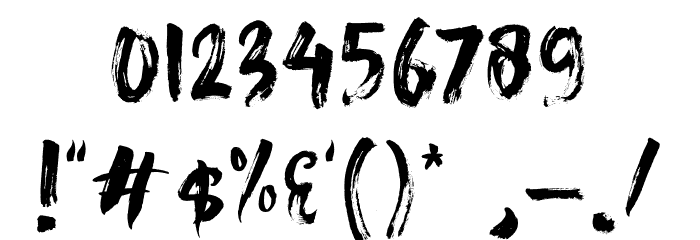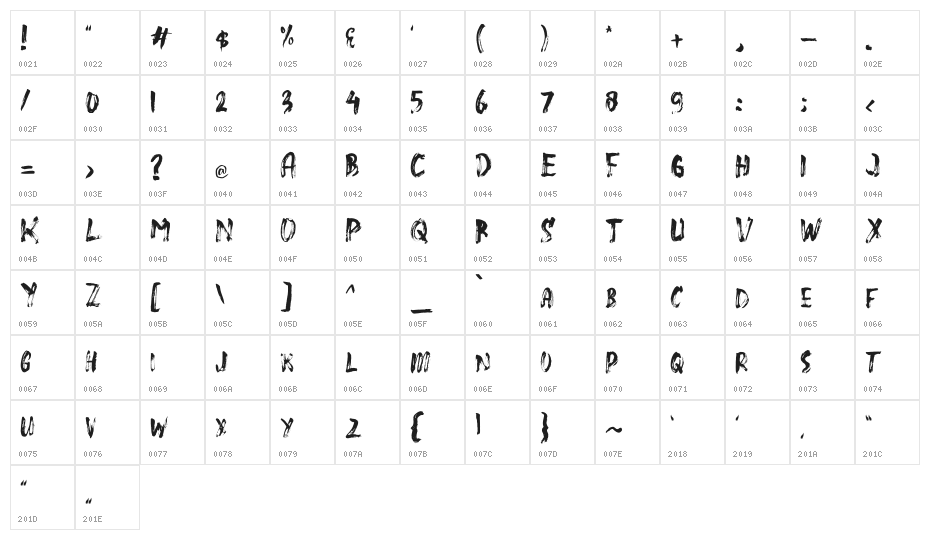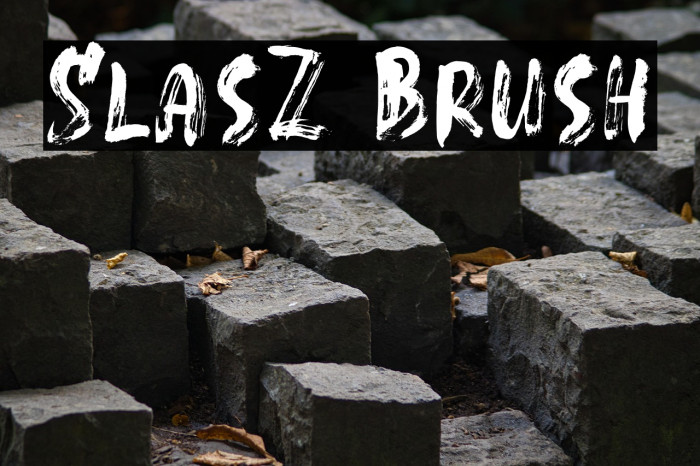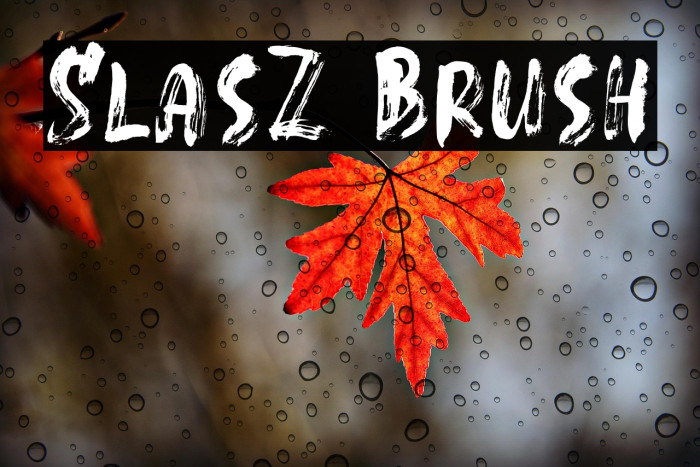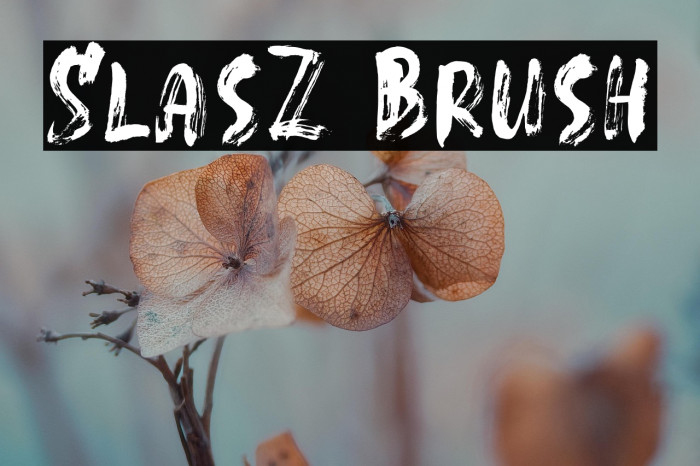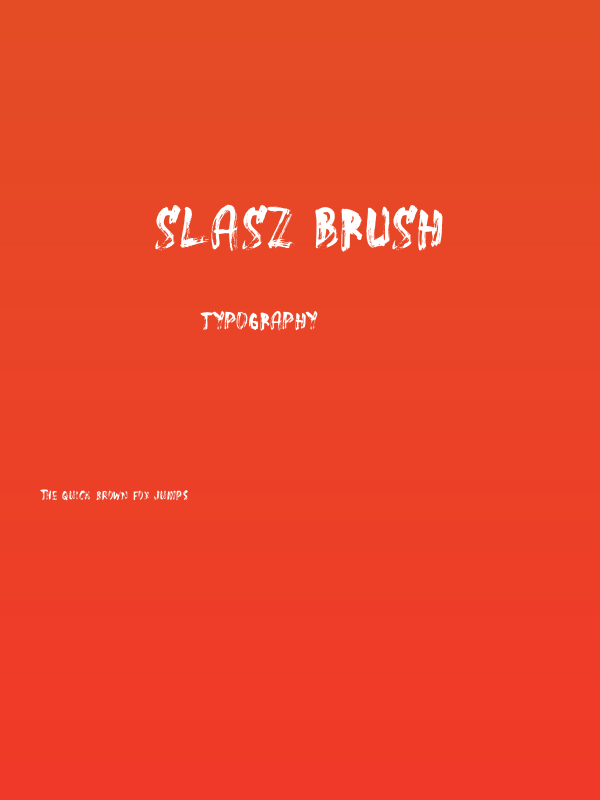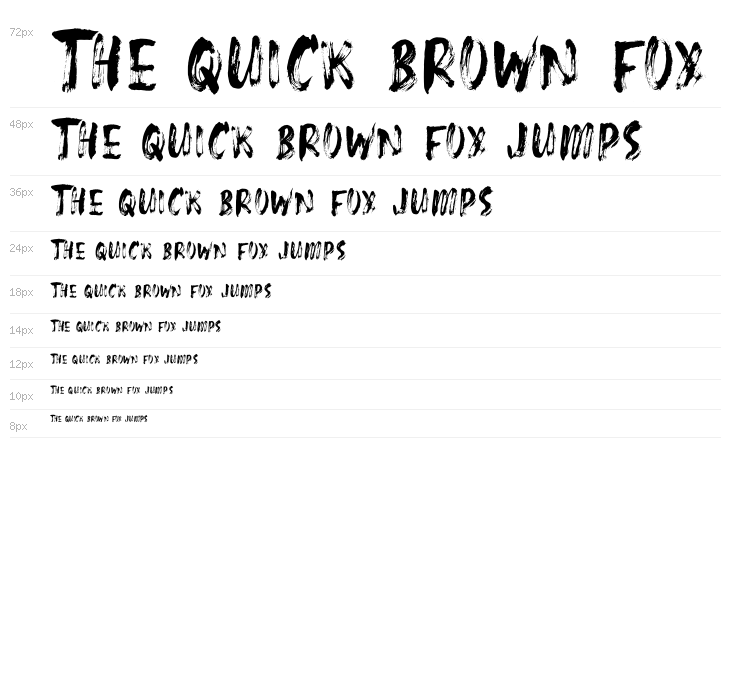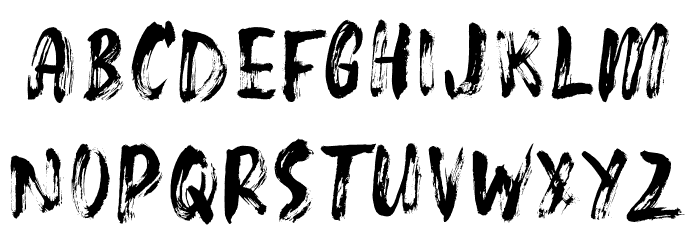
SlasZ Brush Font
SlasZ Brush Description
This font exudes a bold and artistic flair, characterized by its brushstroke appearance that gives it a dynamic and energetic feel. Each letter is crafted with a textured, hand-painted style, making it stand out with a raw and expressive quality. The strokes vary in thickness, adding a sense of movement and spontaneity. This font is perfect for projects that require a touch of creativity and individuality, as it captures attention with its unique and artistic design. The uppercase and lowercase letters maintain a consistent style, while the numbers and special characters complement the overall aesthetic, ensuring versatility in various design applications.
| Overall Style | Artistic, Expressive |
| Proposed Projects | Ideal for artistic posters, creative branding, event invitations, and expressive social media graphics. |